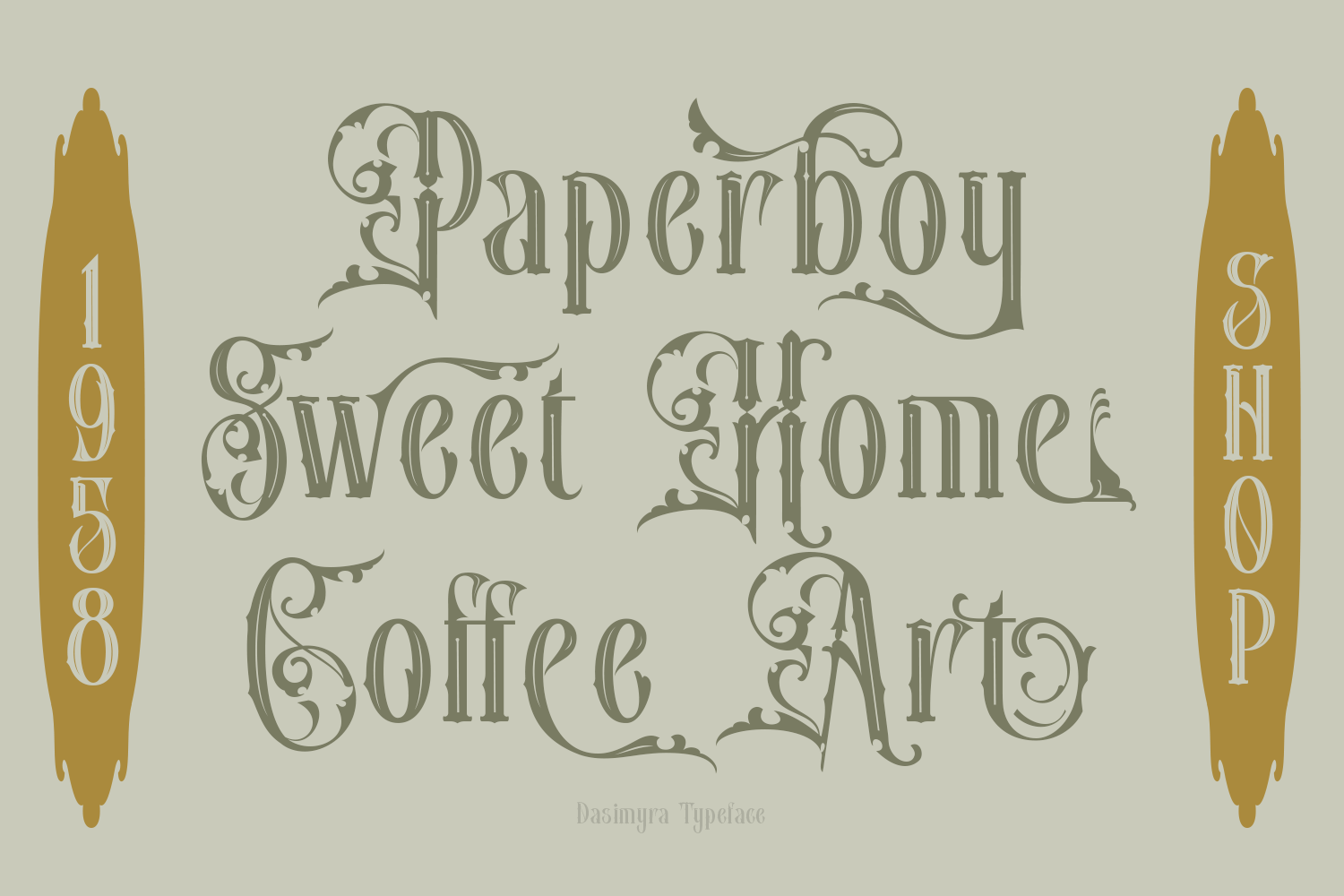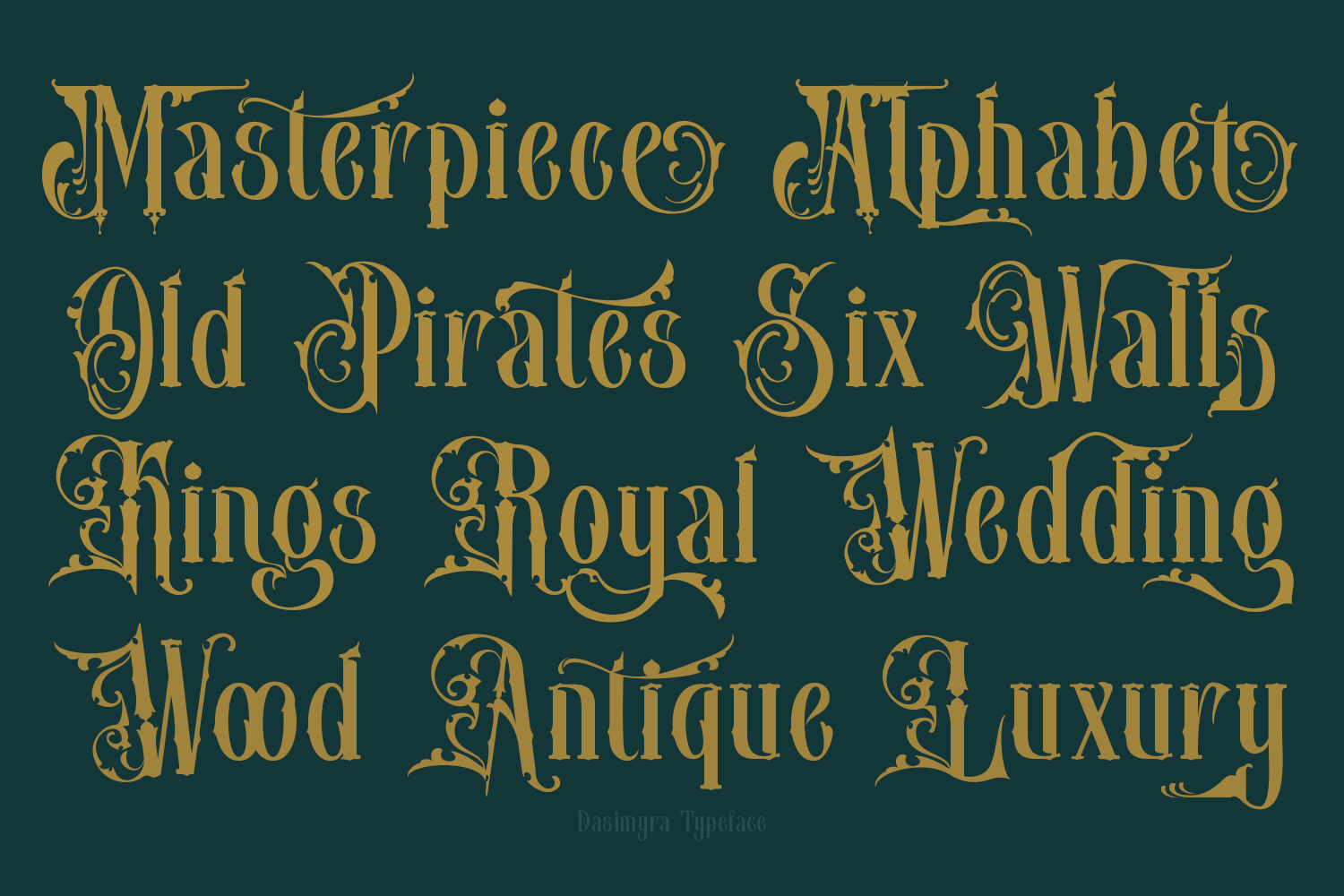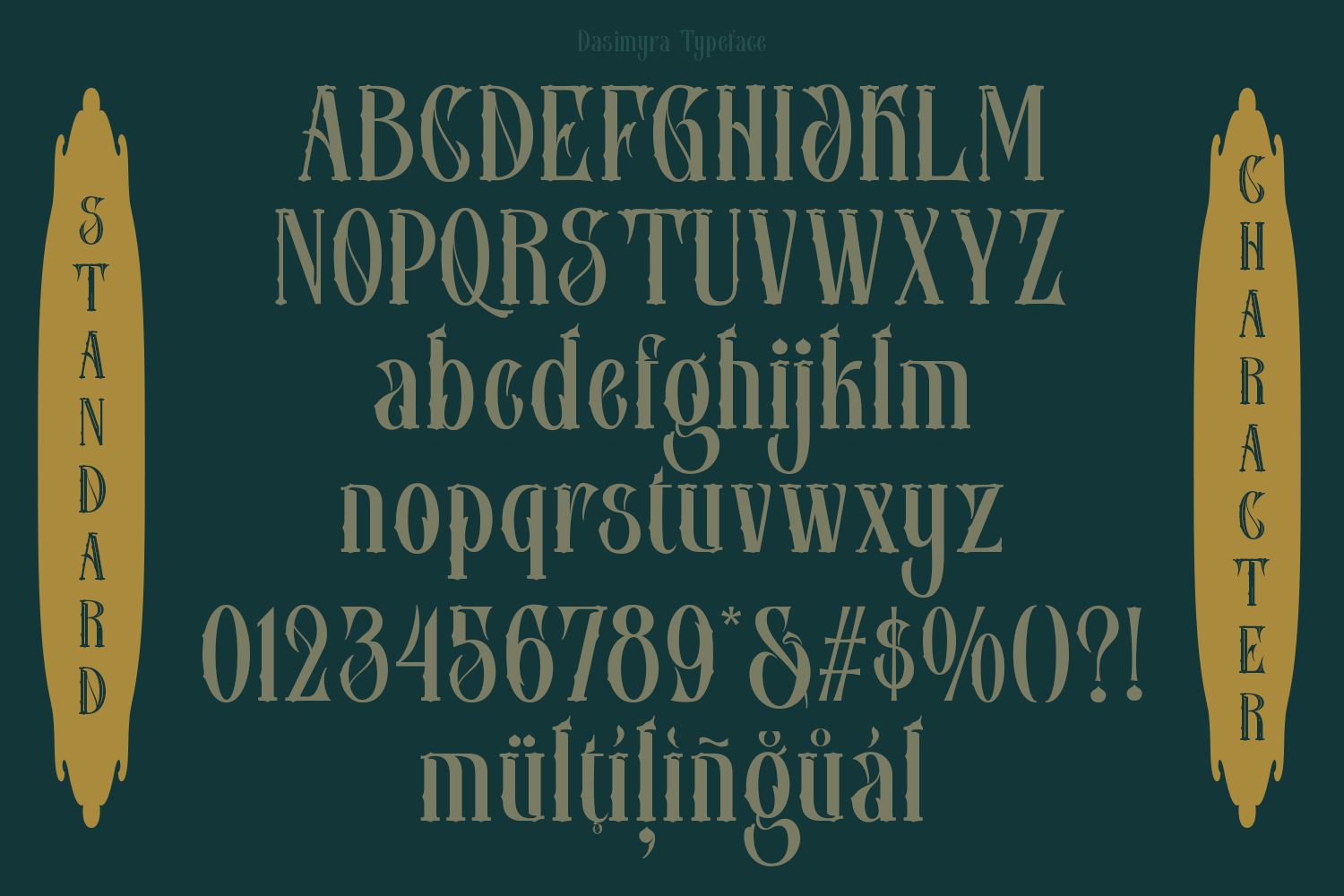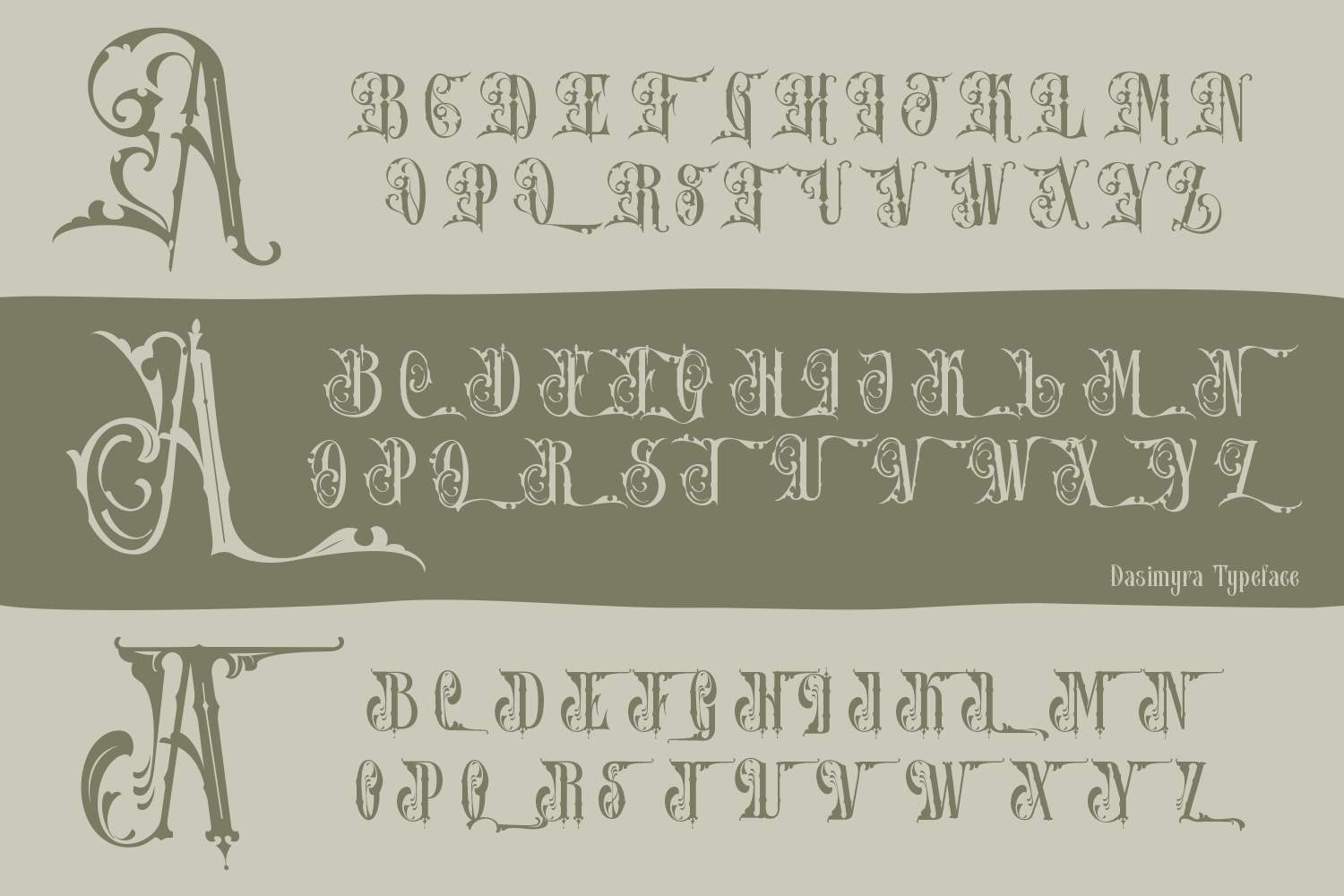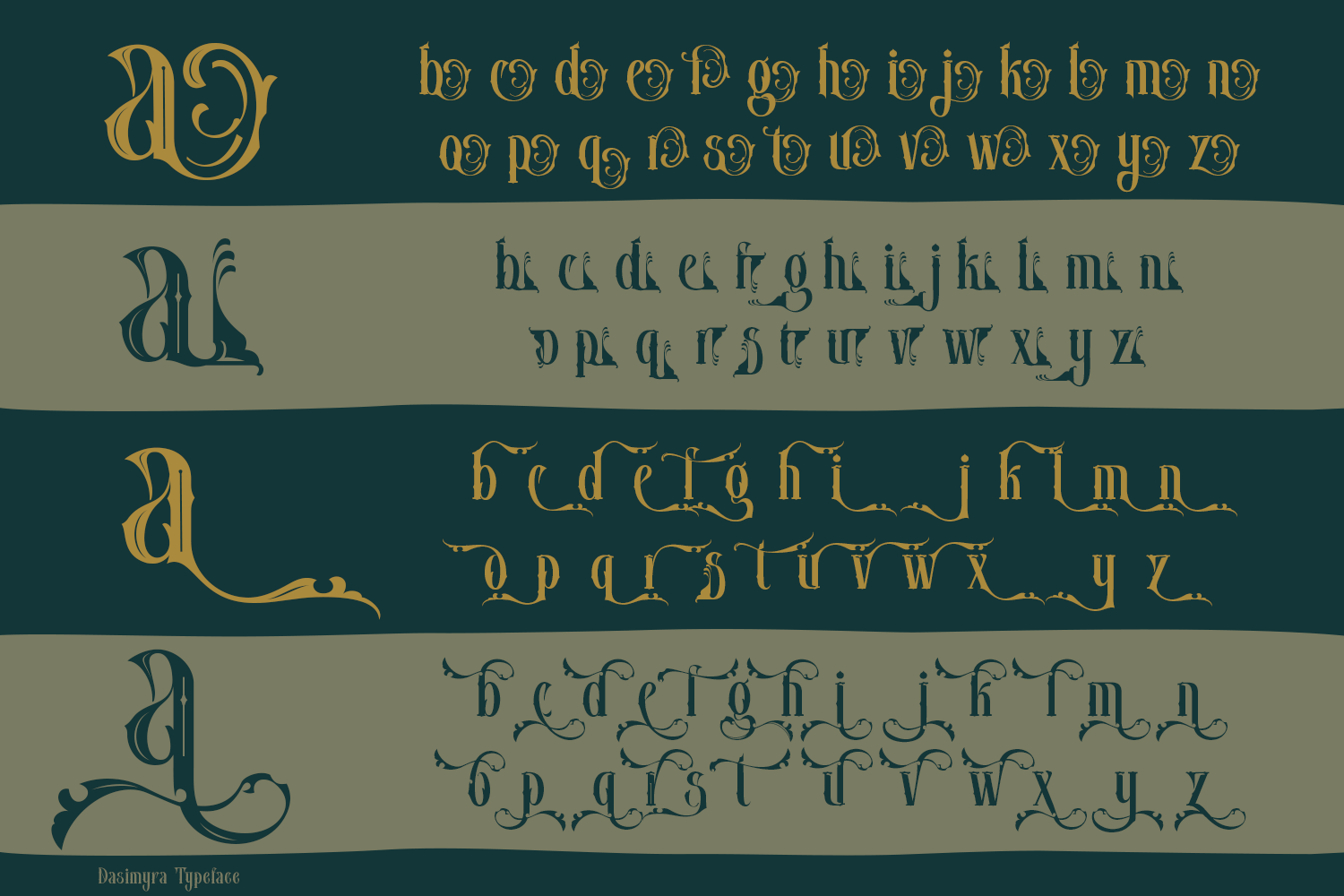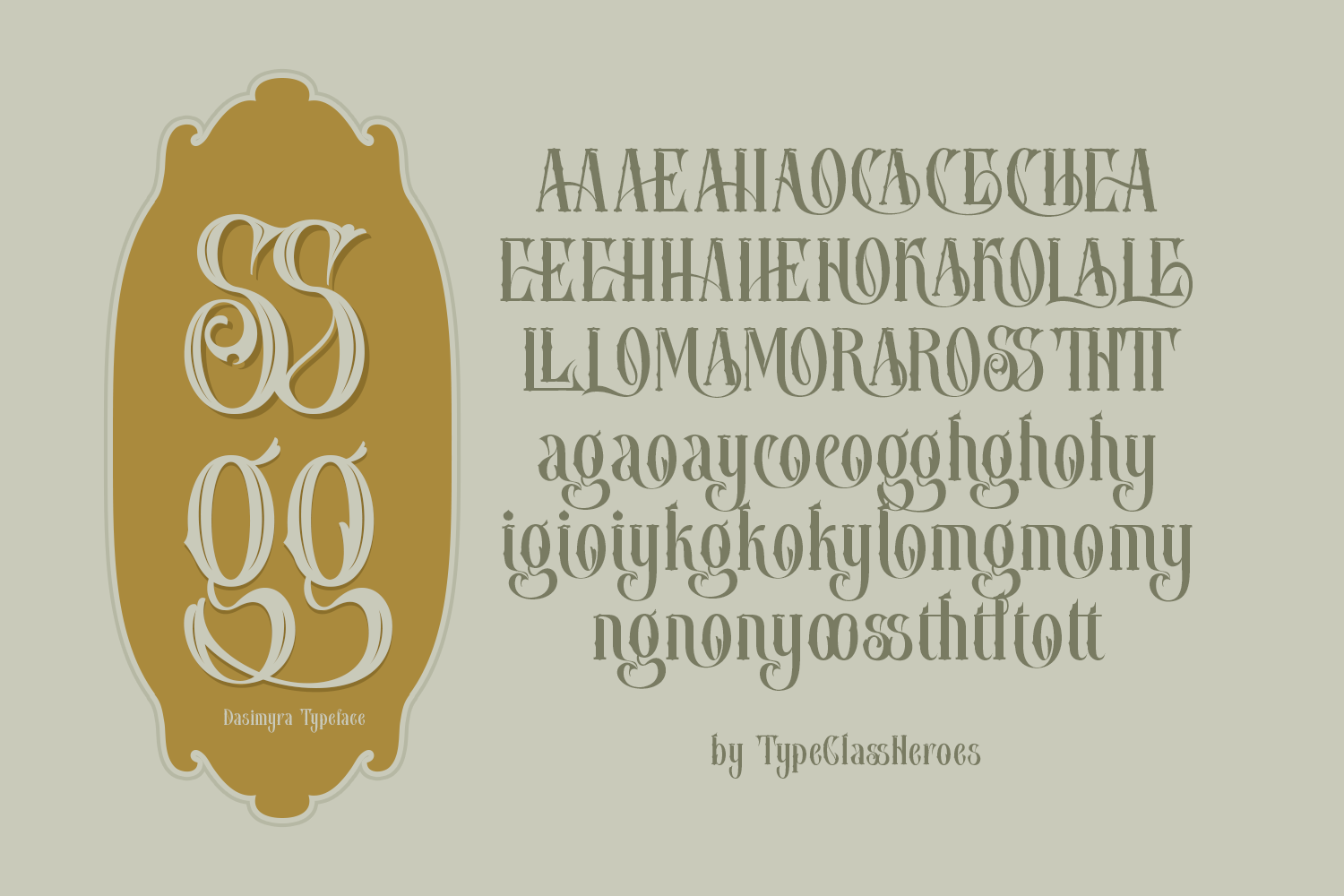
Introducing Dasimyra antique Victorian typeface, a classic and ornate font that embodies the majestic elegance of the Victorian era, creating a luxurious and authentic feel. This typeface conveys a timeless sense of luxury and professionalism with its classy character and harmonious visual balance. It is ideal for branding applications that aim to emphasize an exclusive, trustworthy, and authoritative image. Dasimyra enhances any project with its distinctive style and refined aesthetic, making it perfect for upscale branding, invitations, and elegant packaging.